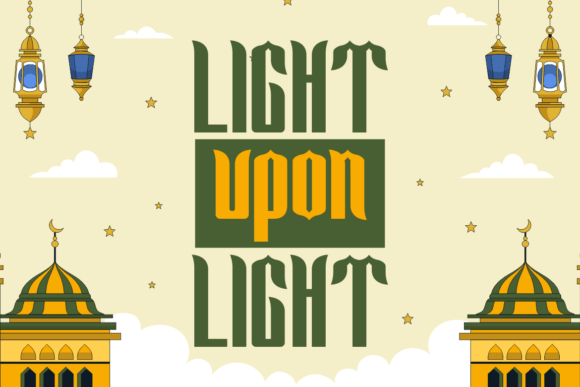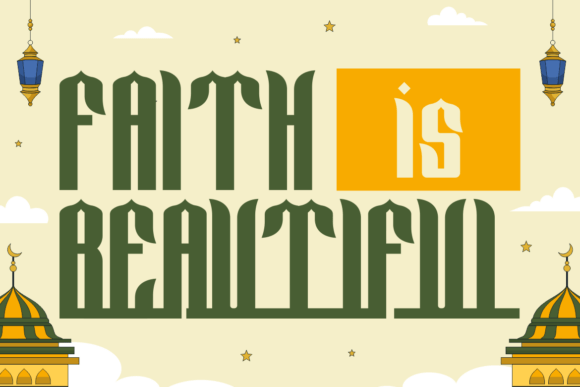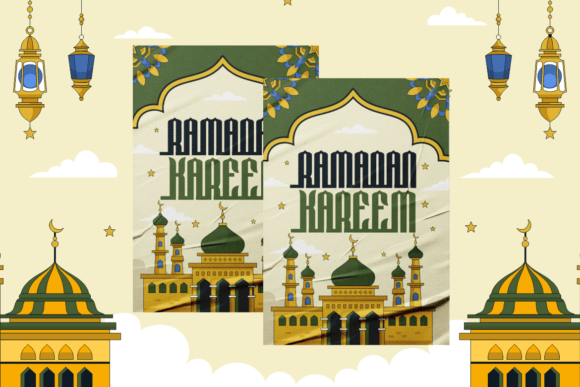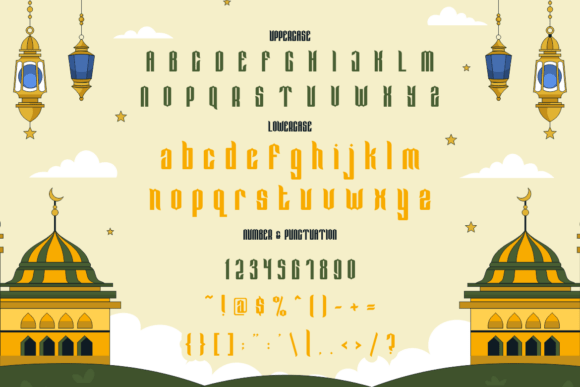
Introducing Amira Glace: A Majestic Arabic-Style Display Font
Amira Glace is a stunning bold Arabic-style display font that embodies the rich cultural heritage of Islamic and Middle Eastern aesthetics. This magnificent typeface is designed to transport you to a world of elegance and sophistication, perfect for creative projects that demand a touch of tradition and modernity.
A Font Inspired by Islamic Architecture
Amira Glace features a tall and condensed structure, reminiscent of the majestic arches and domes found in Islamic architecture. The font’s design integrates ornamental strokes at the top of each letterform, meticulously crafted to reflect the cultural depth and beauty of the region. The result is a regal and spiritual look that exudes balance and legibility.
Symmetrical Angles and Vertical Strokes
The combination of symmetrical angles and vertical strokes in Amira Glace gives it a unique and majestic appearance. This distinctive design element makes the font perfect for a wide range of applications, from Ramadan campaigns and mosque signage to Islamic book covers and elegant invitations.
Dual-Toned Possibilities with Uppercase and Lowercase Styles
Amira Glace offers dual-toned possibilities with its uppercase and lowercase styles, allowing designers to experiment with rich green and gold shades. These symbolic colors represent growth and prosperity, adding an extra layer of meaning to any creative project. Whether you’re designing a poster, branding for Halal products, or Eid Mubarak packaging, Amira Glace provides the perfect visual language.
Perfect for Various Applications
Amira Glace is an incredibly versatile font, suitable for a wide range of applications, including:
- Ramadan campaigns and Islamic events
- Mosque signage and Islamic book covers
- Elegant invitations and greeting cards
- Posters and branding for Halal products
- Eid Mubarak packaging and festive designs
Balancing Tradition and Modernity
Amira Glace strikes the perfect balance between tradition and modernity, making it an ideal choice for designers and crafters seeking to create something truly unique. This font brings a sacred visual language to any creative project, allowing you to connect with your audience on a deeper level.
Amira Glace is a breathtaking Arabic-style display font that will elevate your creative projects to new heights. With its majestic design, ornamental strokes, and symmetrical angles, this font is perfect for designers and crafters seeking to add a touch of elegance and sophistication to their work. Whether you’re creating Ramadan campaigns, Islamic book covers, or elegant invitations, Amira Glace is the perfect choice.